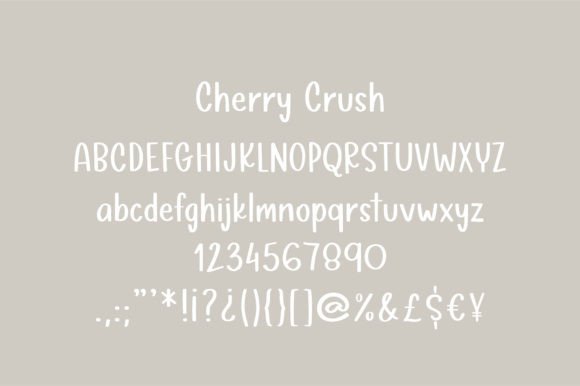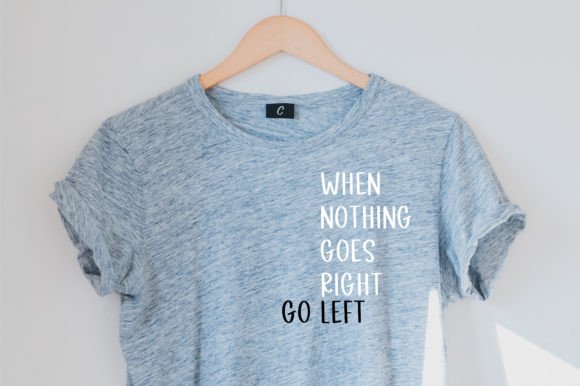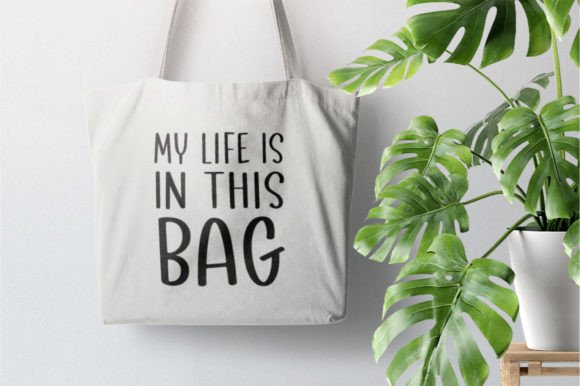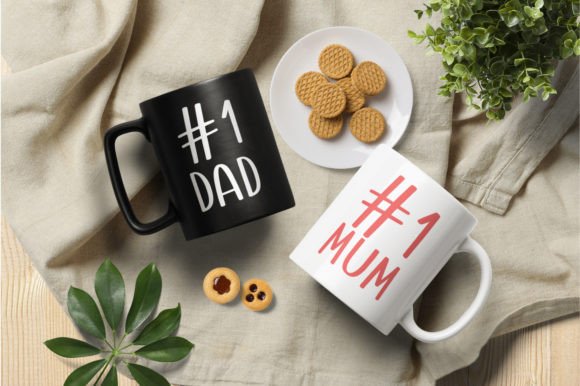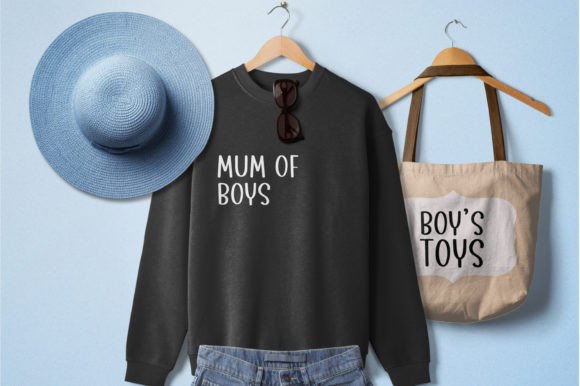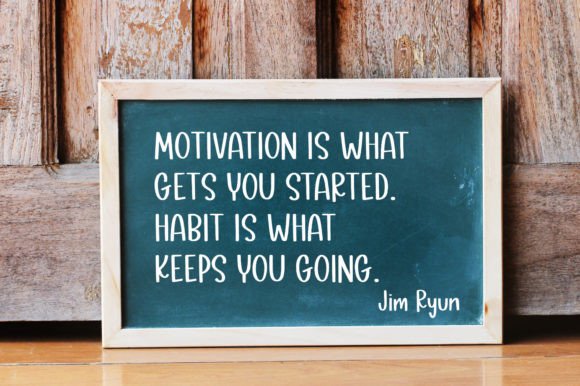
Discover the Sweet Charm of Cherry Crush Font
Have you ever been brainstorming a new project and suddenly, the perfect font pops into your mind? That’s exactly what happened to us when we stumbled upon the charming Cherry Crush Font. Its playful and stylish vibe instantly sparked our creativity, and we knew we had to share it with the world.
This delightful font is more than just a pretty face – it’s a versatile tool that can elevate both professional and casual designs. From branding and labels to packaging and posters, Cherry Crush Font is the perfect companion for designers who want to add a touch of whimsy and personality to their work.
Cherry Crush Font Key Features
- Font Style: A playful, handwritten font with a modern twist, perfect for creating eye-catching designs.
- Character Set: Includes a wide range of characters, including uppercase and lowercase letters, numbers, and punctuation marks.
- Unique Characteristics: Features a unique, hand-painted feel with subtle texture and imperfections, adding a touch of personality to any design.
Cherry Crush Font Review
Overall, I think Cherry Crush is a lovely font that could be a great addition to any design project. Here are some things that I think work well:
- ✨ Unique style: Cherry Crush has a distinctive, playful feel that’s sure to catch attention.
- ✨ Versatile: It’s suitable for a wide range of applications, from logos to body text, and even social media graphics.
- ✨ Great for creatives: If you’re working on a design project that needs a touch of whimsy, Cherry Crush is a great choice.
However, I do have a few concerns:
- ⚠️ Limited legibility: At smaller font sizes, Cherry Crush can become difficult to read, especially for body text.
- ⚠️ Limited language support: I’ve noticed that Cherry Crush doesn’t include a wide range of language-specific glyphs, which could be a problem for designers working on multilingual projects.
- ⚠️ Not suitable for formal designs: Cherry Crush is a bit too playful for formal or professional designs, so keep that in mind.
Overall, I think Cherry Crush is a great font for the right project, but it’s not without its limitations. With a bit of caution and careful usage, it can be a real showstopper.
Tips for Getting the Most Out of Cherry Crush Font
Use Cherry Crush Font for titles, headings, and other eye-catching text elements.
Pair Cherry Crush Font with a clean and simple font for body text to create a visually appealing contrast.
Experiment with different font sizes and styles to add emphasis and create a unique look.
Use Cherry Crush Font for:
Food and beverage branding
Photography and design portfolios
Other creative and artistic projects
Alternatives to Cherry Crush Font
The Great Vibes Font is a beautiful, elegant script font that can be used for various purposes, including invitations, wedding cards, and branding. It has a similar playful and whimsical feel to Cherry Crush Font, but with a more refined and sophisticated look.
Comparison: Great Vibes Font has a more polished and refined feel compared to Cherry Crush Font, making it suitable for formal and elegant designs.
The Alex Brush Font is a handwritten script font that is perfect for creating a personal and creative touch in designs. It has a similar organic feel to Cherry Crush Font, but with a more refined and elegant look.
Comparison: Alex Brush Font has a more elegant and refined feel compared to Cherry Crush Font, making it suitable for designs that require a touch of sophistication.
The Carolyna Pro Font is a modern and elegant script font that is perfect for creating a luxurious and high-end feel in designs. It has a similar sense of sophistication to Cherry Crush Font, but with a more refined and polished look.